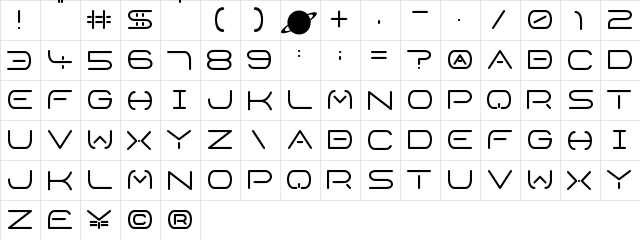
Space Horizon Regular
Design Context for Space Horizon Typeface
Space Horizon offers clean, dependable letterforms without strong stylistic allegiance, making it a practical choice for designers who need flexibility.
Pro Tip: Pair Space Horizon with a font of contrasting weight or personality to build a more expressive typographic hierarchy.